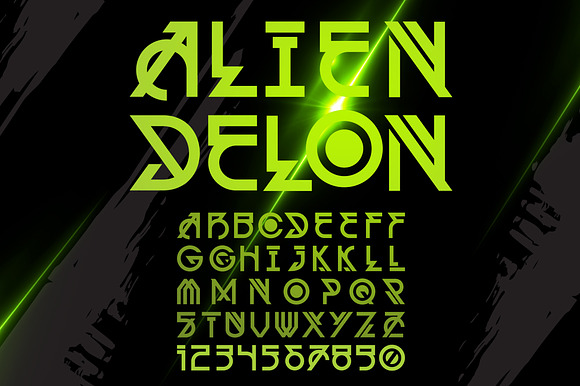
Alien Delon Font
Alien Delon Font is perfect for science fiction entertainment, extraterrestrial research organizations, futuristic technology brands, space exploration companies, alien-themed gaming platforms, and otherworldly entertainment venues. Its extraterrestrial character makes it ideal for UFO investigation services, sci-fi movie productions, alien encounter documentaries, space-age design studios, intergalactic gaming companies, and any project requiring otherworldly sophistication with extraterrestrial mystery and cosmic intelligence appeal.
This font is exciting because it captures the enigmatic elegance and advanced intelligence of extraterrestrial civilizations while delivering exceptional functionality for brands exploring the mysteries of space, alien life, and futuristic possibilities beyond our world. The mysteriously crafted letterforms suggest advanced alien technology and cosmic intelligence, creating typography that feels both familiar and utterly otherworldly, perfect for audiences fascinated by extraterrestrial possibilities.
The Alien Delon Font family typically includes Light, Regular, Medium, and Bold weights with extraterrestrial alternates, cosmic ligatures, and otherworldly elements that enhance its mysterious personality. This comprehensive collection enables sci-fi professionals to create captivating brand systems that maintain extraterrestrial authenticity while offering flexibility for various space-themed applications requiring both cosmic authority and contemporary science fiction market positioning.
Whether you're developing identity systems for space exploration organizations, creating materials for alien-themed entertainment, or designing promotional content for futuristic technology brands, Alien Delon Font Free Download delivers the extraterrestrial sophistication and cosmic mystery that connects with audiences fascinated by alien intelligence and space exploration. Its otherworldly presence ensures unforgettable brand recognition across digital platforms and print materials, making it perfect for websites, mobile applications, and sci-fi campaigns that celebrate extraterrestrial possibilities, cosmic intelligence, and the transformative potential of contact with alien civilizations with contemporary science fiction standards and authentic otherworldly appeal.